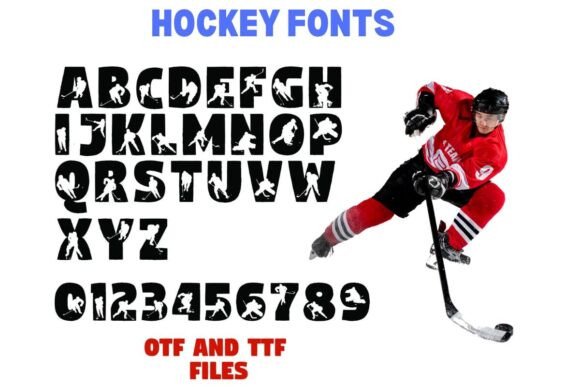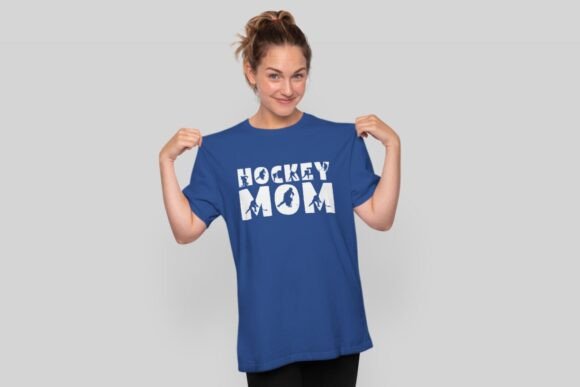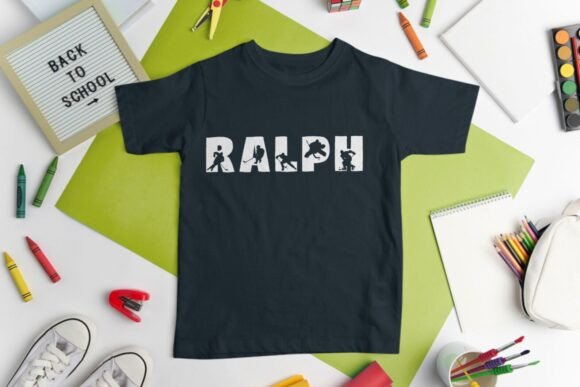
Hockey Font
About the Hockey Font
Crafted with precision, the Hockey Font is ready to bring your ideas to life. Step onto the creative rink with our exclusive Hockey Fonts collection! Perfectly capturing the high-energy spirit and rugged charm of the game, these fonts are designed to add that extra punch to your sports-themed projects. Whether you’re crafting team logos, designing jerseys, or creating dynamic posters, our fonts bring the intensity of the ice right into your designs.
Score big with designs that capture the true essence of hockey. Whether you’re a graphic designer, a sports enthusiast, or a creative entrepreneur, our Hockey Fonts are your go-to choice for making a lasting impression.
Hockey Font Usage Examples
Hockey Font Example